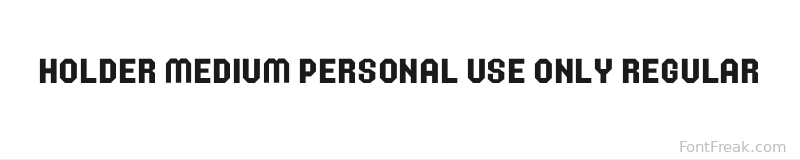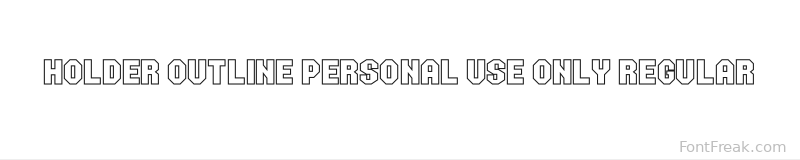
Holder Light PERSONAL USE ONLY Regular
Holder Bold PERSONAL USE ONLY Regular
Holder Outline PERSONAL USE ONLY Regular
Holder Medium PERSONAL USE ONLY Regular
The Holder Light PERSONAL USE ONLY Regular font by Mans Greback is a striking display typeface that embodies a modern aesthetic. This sans-serif font features a clean and minimalistic design, characterized by its light stroke weight and uniform spacing, which lends a contemporary feel to any project. The absence of decorative elements allows the font to maintain a straightforward elegance, making it versatile for various applications.
This font is particularly well-suited for creative projects such as wedding invitations, where its refined style can enhance the overall design without overwhelming it. Additionally, it works beautifully in movie posters, offering a fresh and approachable look that captures attention. Restaurant menus can also benefit from the Holder Light font, providing clarity and readability while adding a touch of sophistication. Furthermore, content creators can utilize this font in social media graphics, ensuring their posts stand out with a professional and polished appearance.
Targeted towards graphic designers, small business owners, and content creators, the Holder Light font appeals to those seeking a modern typeface that combines simplicity with style. Its versatility makes it a valuable addition to any designer’s toolkit, especially for projects that demand a contemporary touch.
What sets the Holder Light PERSONAL USE ONLY Regular font apart is its ability to convey a sense of modernity while remaining approachable. Its clean lines and balanced proportions create a harmonious visual experience, making it an ideal choice for anyone looking to elevate their design projects. For those interested in incorporating this stylish font into their work, the Holder Light PERSONAL USE ONLY Regular font free download is an excellent opportunity to enhance your creative endeavors.